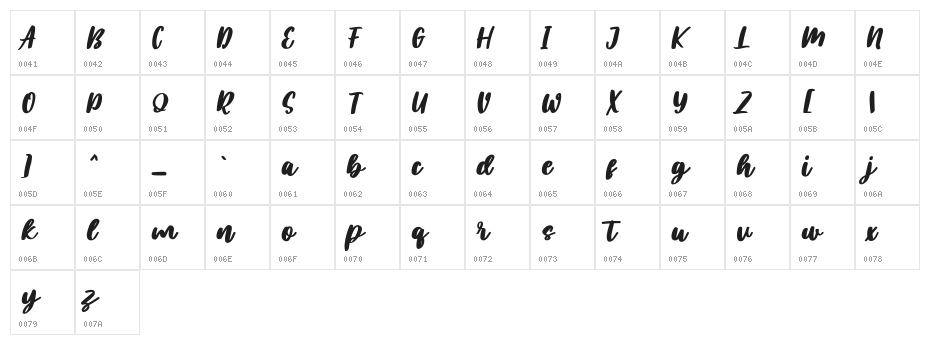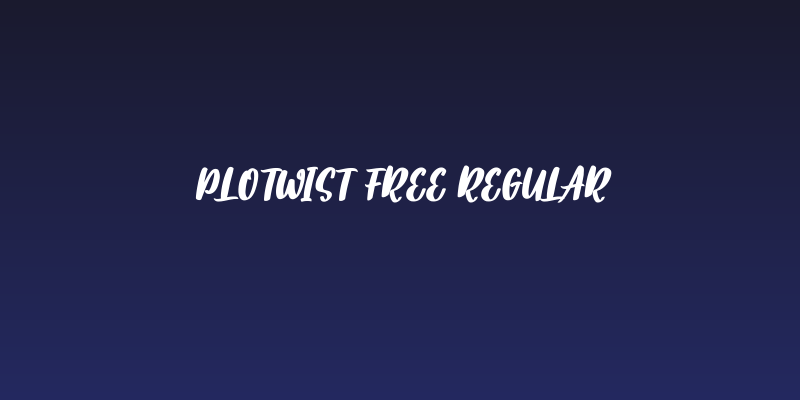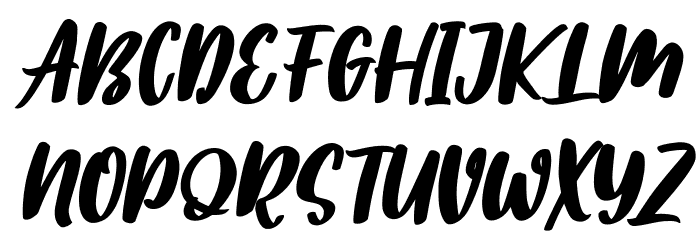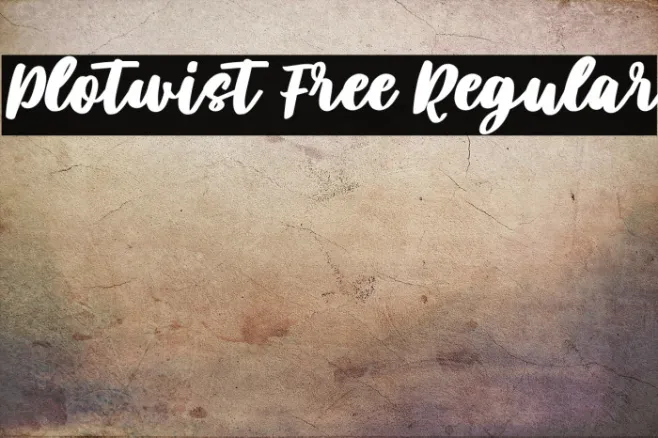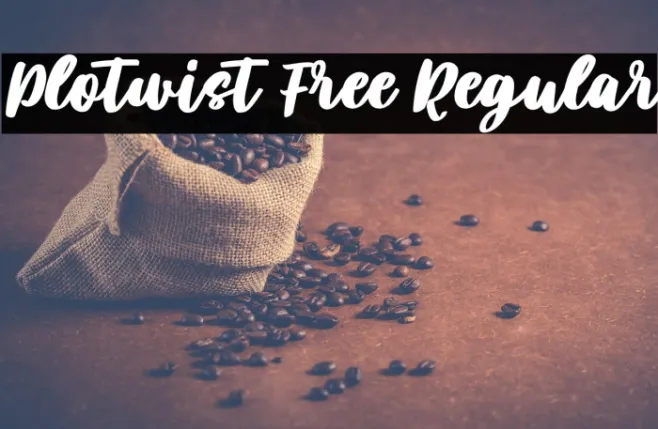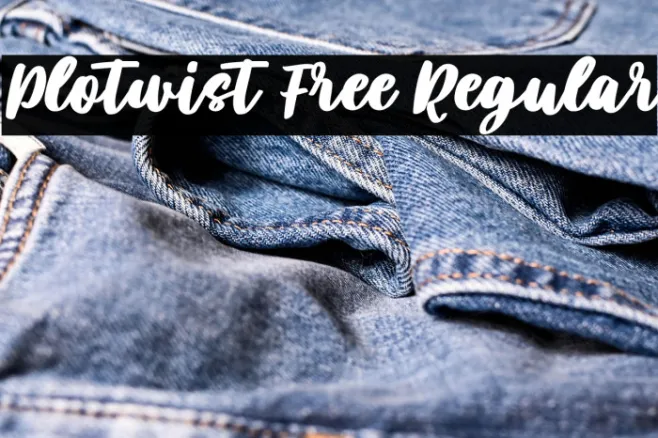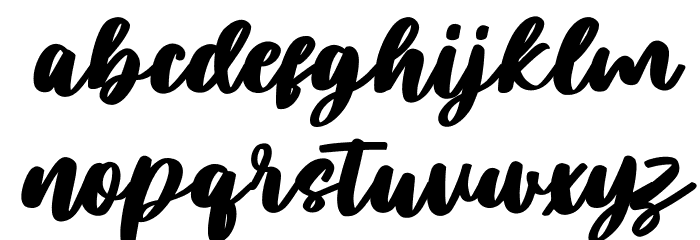
Plotwist Free Regular Font
Plotwist Free Regular Description
This font features a bold and expressive script style, characterized by its fluid and dynamic strokes. The letters are interconnected, creating a sense of movement and flow. The uppercase letters are prominent and slightly larger than the lowercase, adding emphasis and a touch of elegance. The font maintains a consistent thickness throughout, providing a uniform appearance. Its playful yet sophisticated design makes it suitable for creative projects that require a personal touch. The overall style is modern and artistic, appealing to those looking for a unique and stylish typeface.
| Proposed Projects | Ideal for branding, invitations, greeting cards, and creative posters. |